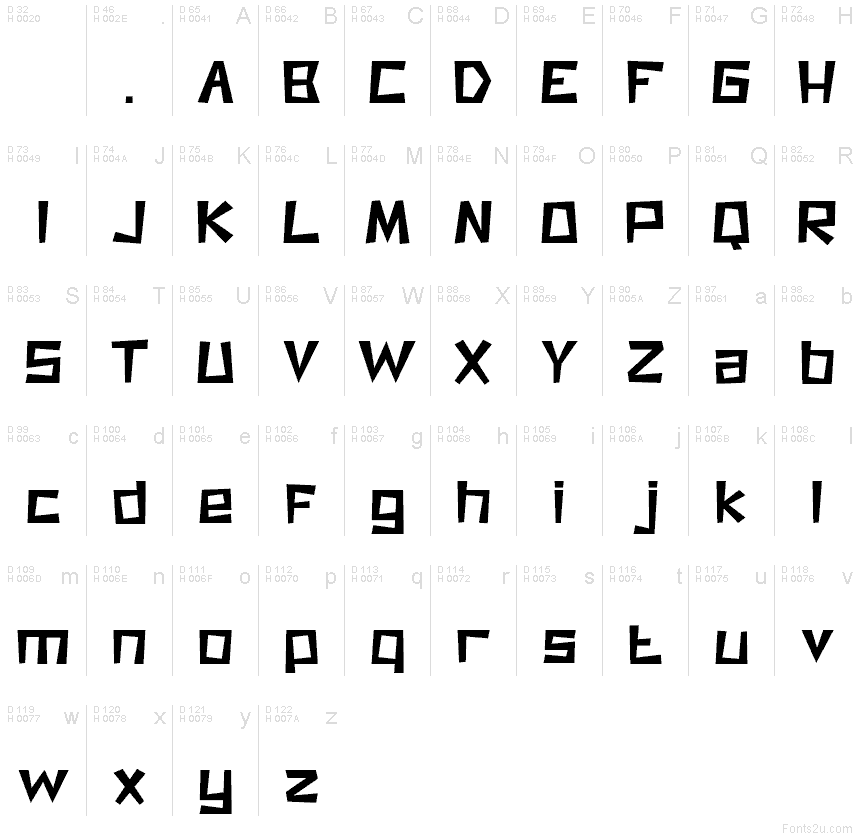
Super Crash Regular
Super Crash font by Achmad Yani of Flawless and Co. is a free cartoon display typeface that hits like a comic-book sound effect. Chunky, off‑kilter letters snap into place with sharp wedges and playful tilts, creating a sense of motion even when standing still. The rhythm feels bold and punchy, with dense black shapes that stay readable at a glance—think crash, boom, pow without the clichés.
Using Super Crash, headlines leap off the page for kids’ book covers, game titles, toy packaging, comic strips, pop-up banners, party invites, and YouTube thumbnails. The irregular angles add instant energy, while the compact spacing keeps lines tight and impactful. Pair this free font with a simple rounded sans for body copy, or set Super Crash extra large to let the jagged contours do the shouting.